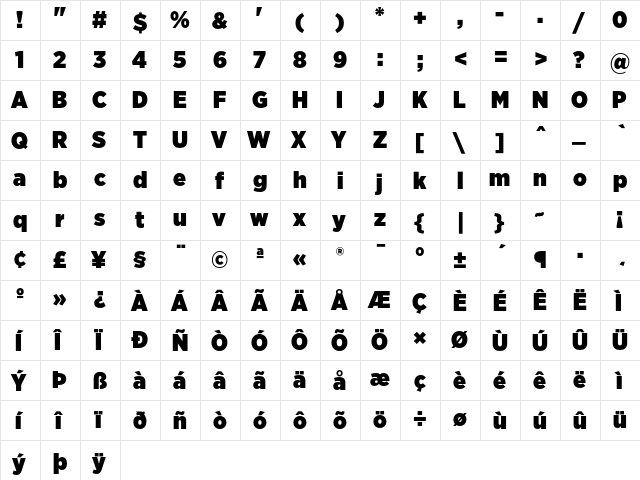
Gotham Narrow Ultra
| Foundry | Hoefler & Frere-Jones |
| Designer | Hoefler & Frere-Jones |
Design Context for Gotham Narrow Typeface
Gotham Narrow offers clean, dependable letterforms without strong stylistic allegiance, making it a practical choice for designers who need flexibility. The condensed width makes it efficient for tight spaces without sacrificing legibility.
Pro Tip: Use Gotham Narrow in both headline and body roles to test its range before committing to a single application.